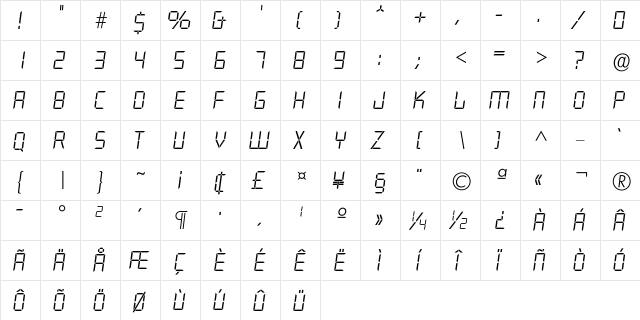
Iquartz-Light Regular
Design Context for Iquartz-Light Typeface
Iquartz-Light is a composed and adaptable typeface that performs quietly and consistently across a wide range of design contexts. Its slender proportions lend an understated elegance to any composition.